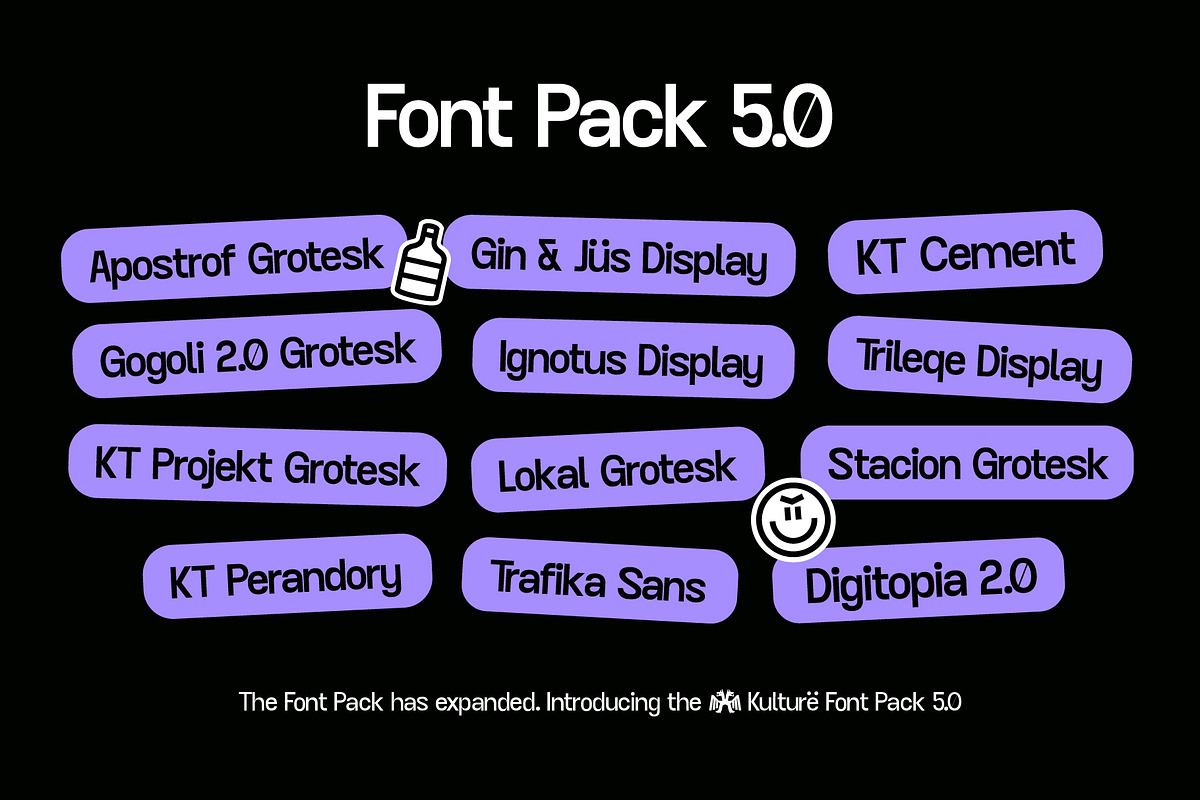
This comprehensive collection is perfect for design agencies, freelance designers, marketing departments, creative studios, brand development projects, multi-client portfolios, versatile advertising campaigns, and professional typography libraries. Its extensive variety makes it ideal for projects requiring multiple font styles and complete typographic solutions in one convenient package.
Font Pack 5.0 is exciting because it represents the latest evolution in font collection curation, featuring carefully selected typefaces that cover every design need from elegant serifs to bold display fonts. The 5.0 version includes cutting-edge typography trends, improved OpenType features, and enhanced compatibility across all platforms. Its comprehensive approach ensures designers have instant access to professional-quality fonts that work harmoniously together while maintaining individual character and distinction.
The Font Pack 5.0 family includes dozens of carefully curated fonts spanning serif, sans-serif, script, display, and specialty categories, along with matching weights, styles, and extensive character sets. Many fonts feature advanced OpenType features, multilingual support, and professional-grade kerning optimized for contemporary design workflows.
Whether you're building complete brand identities, developing diverse client projects, or expanding your professional font library, Font Pack 5.0 Free Download provides unmatched typographic versatility with consistent quality standards. This extensive collection transforms any designer's capabilities with instant access to coordinated typography solutions that ensure professional results across all applications. Its comprehensive scope eliminates the need for multiple font purchases while guaranteeing compatibility and quality, making it an indispensable resource for professionals who demand Font Pack 5.0 Free Download excellence and maximum creative flexibility.